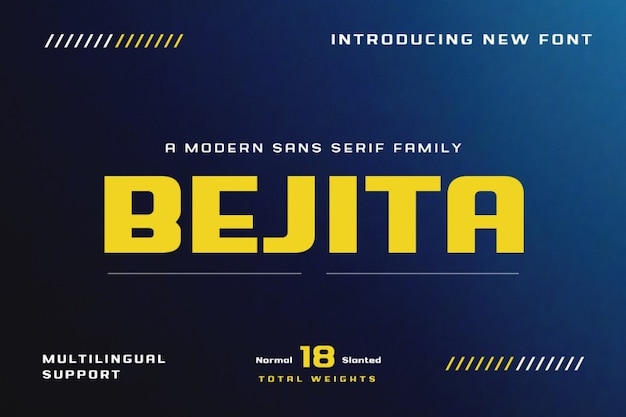
Bejita
Bejita Font
Made to create stunning designs, the Bejita font is a must! Available in 18 different styles, this modern typeface is a versatile choice for any project: logos, posters, packaging, video games, and much more. Download it and start creating!